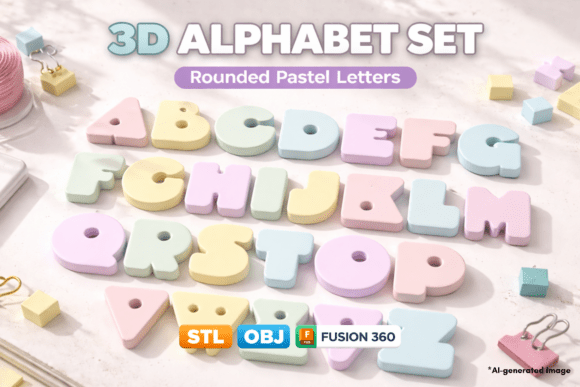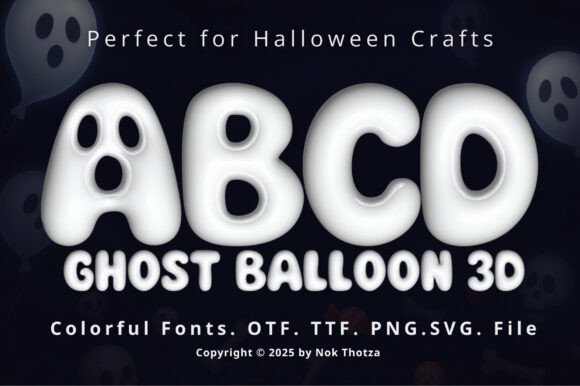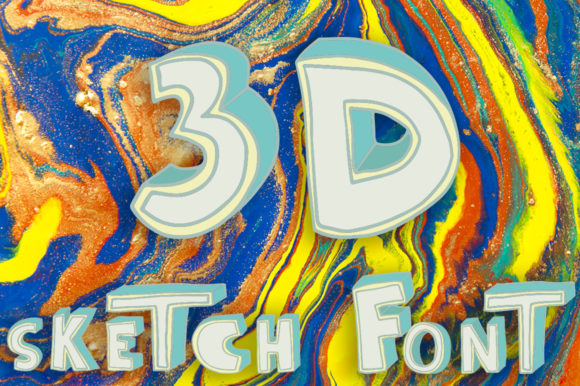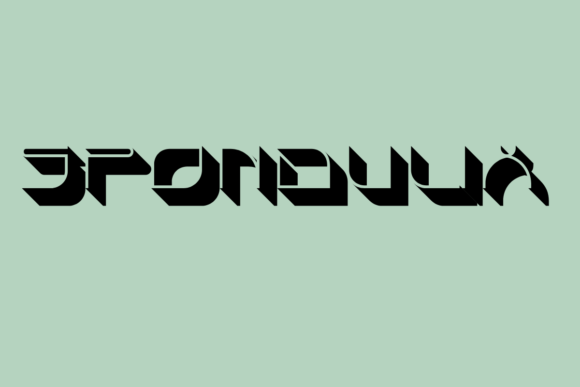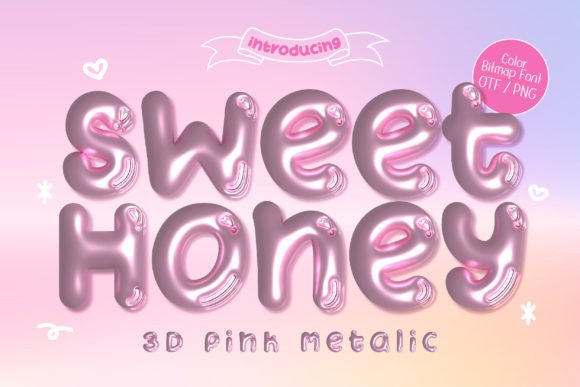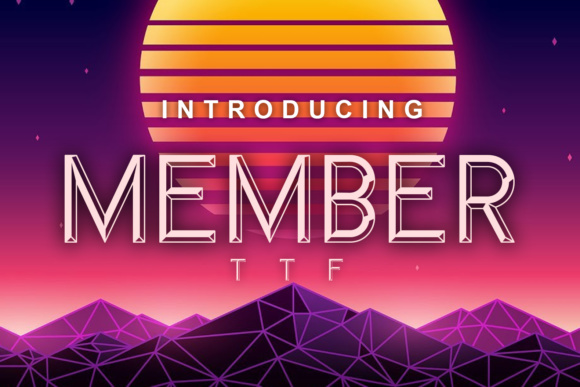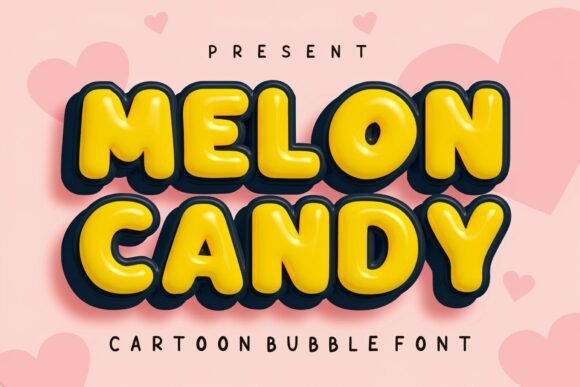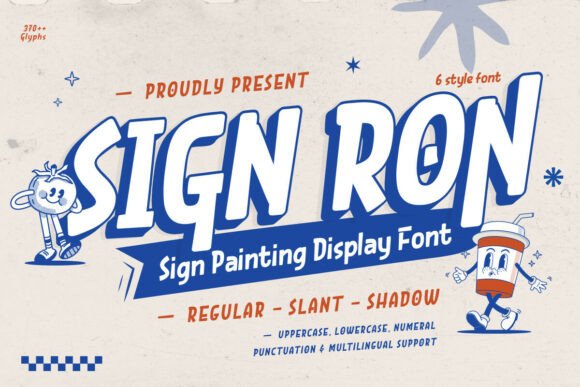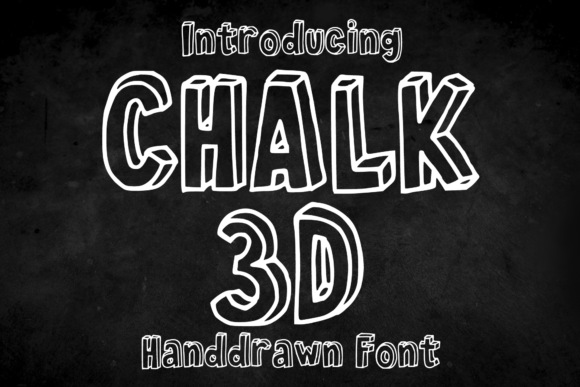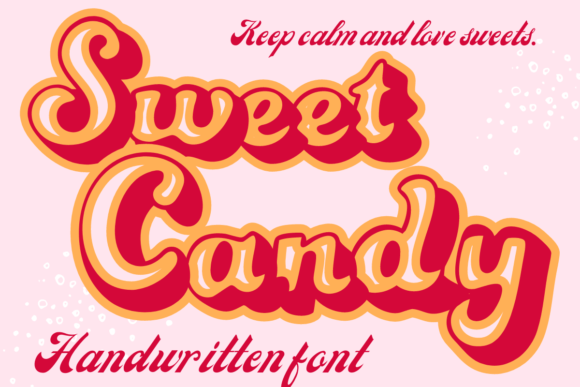
A curated stash of high-impact 3D typefaces and text effects that instantly boost visuals and save hours of design work.
This handpicked TOP 92 is all about bold 3D letter styles, color bitmap fonts, and ready-made text effects that add instant depth. Each file is simple to plug into your favorite tools, so eye-catching logos, covers, and posts take minutes instead of days.
1. Rounded Hanging Alphabet Letters 3D Print Model Set
Smooth rounded uppercase alphabet with a modern hanging-sign look. Includes STL, OBJ, and editable F3D files.
2. Ghost Balloon 3D Font
Glossy 3D letters shaped like floating ghost balloons. Playful spooky style with a cute-creepy look.
3. 3D Sketch Urban Display Font
Cool urban 3D sketch letterforms with a trendy display vibe. Includes a versatile typeface for bold, varied looks.
4. Spondulix Futuristic 3D Display Font
Futuristic display font with a bold 3D look. Includes a unique set of characters for sci-fi styling.
5. Sweet Honey 3D Pink Metallic Font
Cute 3D pink metallic lettering with a sleek modern shine. Includes color bitmap OTF and optional PNGs.
6. Member 3D Display Font
Bold 3D letterforms deliver instant depth and impact. Includes a full 3D font for banners, posters, and print.
7. Melon Candy Bubble Display Font
Bold bubble letters with soft rounded edges deliver a cheerful cartoon look. Includes a playful display typeface with high readability for print and digital.
8. Sign Ron Vintage Sign Painter Display Font
Classic sign painting display font with bold strokes and elegant curves. Includes 4 styles with shadow options for layered depth.
9. Chalk 3D Handdrawn Display Font
Playful 3D chalk-style handdrawn lettering with bold depth. Includes a full font for logos, covers, and comics.
10. Sweet Candy Retro 3D Display Font
Fun retro 3D lettering with bold forms and a crisp black shadow. Includes a playful alphabet with a nostalgic, standout vibe.
11. Kultur 3D Decorative Font Family
Stunning 3D decorative letterforms with bold depth. Includes a font family built for banners, posters, and postcards.
12. Byzantia 3D Font Family
Superb 3D letterforms with bold depth and style. Includes a full font family for striking titles.
13. Tango Groove Layered Retro Bubble Font
Layered retro bubble font with bold curves and chunky outlines. Three stackable styles add vibrant 3D depth and pop.
14. Obsidian Flex 3D Glossy Color Bitmap Font
Smooth 3D bitmap letters with a glossy, reflective, dark-colorful vibe. Includes OpenType-SVG font plus transparent PNG set.
15. Starlight 3D Display Font
Delightful 3D display font with a playful carnival, starry vibe. Includes 216 bonus PNG alphabet characters.
16. Golden Donut 3D SVG Font
Glossy donut-style 3D SVG letters with rich shine. Bold, playful typography with premium depth.
17. Unique 3D Display Font
Bold 3D display letterforms with a striking, authentic presence. Includes a full font set built for standout headlines.
18. Chromo Robo Vintage Chrome 3D Display Font
Retro chrome 3D letterforms with bold robotic flair. OpenType-SVG color font plus transparent PNGs and 3 glyph variants.
19. Dimdam 3D Display Font
Bold 3D display letterforms deliver striking depth and impact. Includes a versatile typeface with endless variations.
20. Marona Western Display Typeface
Bold western flair meets playful modern curves. Includes Regular and 3D Extrude styles.
21. 3D Letters Comic Line Font
Linear 3D comic-style lettering with bold depth. Includes a complete font for standout titles.
22. Purple Magic 3D SVG Font
Hand-drawn chubby lettering with bold 3D depth. Includes 3D SVG and regular styles for versatile design.
23. Fooe Fooe Modern Decorative Typeface
Modern decorative typeface with bold contemporary character. Includes regular, line, and 3D styles.
24. Rainbow Orb 3D Glass Rainbow Bitmap Font
Vivid 3D rainbow letters refract through glossy glass ellipses. Includes OpenType-SVG font and transparent PNGs.
25. Great Grand Daddy 3D Handwritten Font
Cool 3D hand-drawn lettering with an old-school vibe. Includes uniquely styled characters for playful headlines.
26. Comunismo 3D Decorative Font
Bold 3D decorative letterforms with striking depth. Includes a versatile typeface for varied design looks.
27. Glass Marbles 3D Glossy Color Bitmap Font
Glossy 3D-rendered OpenType-SVG font with rounded, transparent marble effect. Includes OTF use plus full-res PNG alphabet files.
28. Grigio 3D Color Cartoon Font
Casual 3D color type with a joyful, cartoon feel. Includes an OpenType-SVG font for vibrant lettering.